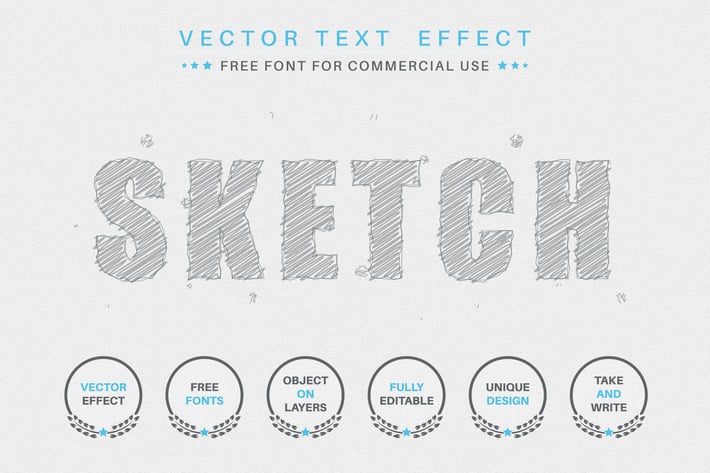
Pencil shading editable text effect, font style
Hello! I'm happy to introduce my new text effect "Pencil shading". Just write your word and the effect will apply! Be as creative as you like to be in expressing yourself using this unique “Pencil shading”. Effect is perfect for any project that needs a unique handy touch whatever else your imagination leads you to!